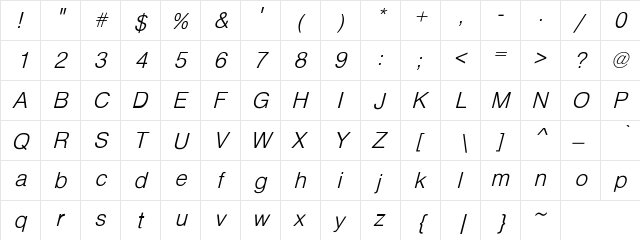
PartridgeObl-Li Regular
Design Context for PartridgeObl-Li Typeface
PartridgeObl-Li is a composed and adaptable typeface that performs quietly and consistently across a wide range of design contexts.